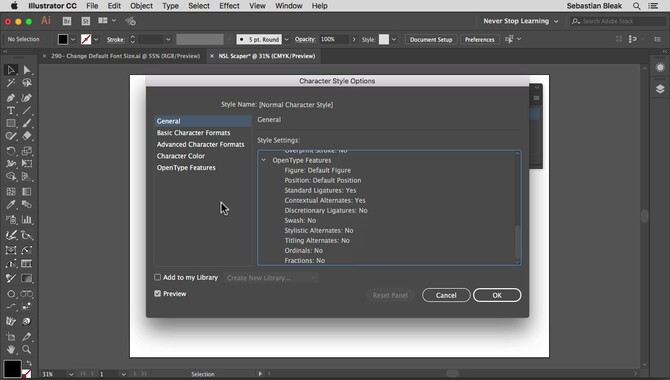
If you’re a graphic designer, chances are you’re familiar with Adobe Illustrator Font List. And if you’re familiar with Adobe Illustrator, then you know that one of its best features is the ability to work with fonts. After all, fonts are an important part of any design, and Adobe Illustrator offers various fonts.
But what if you’re new to Adobe Illustrator? Or maybe you’re just looking for a refresher on the different types of fonts available in the software. Either way, we’ve got you covered. Below is a comprehensive list of all the fonts available in Adobe Illustrator.
Sans Serif Fonts: As the name suggests, sans-serif fonts don’t have any extra embellishments. They’re typically simple and easy to read, making them a popular choice for things like body copy. Adobe Illustrator has several different sans-serif fonts, including Arial, Helvetica, and Verdana.
Serif Fonts: Serif fonts, on the other hand, do have those extra embellishments, or “serifs.” They’re often used for headlines or other short pieces of text because they’re easy to read in small sizes. Adobe Illustrator has several different serif fonts, including Times New Roman, Georgia, and Garam.
What Is The Name Of The Default Font In Adobe Illustrator?
There are a few things to consider when determining the name of the default font in Adobe Illustrator. The first is the version of Adobe Illustrator you are using. The second is whether you are working on a Mac or PC. And the third is the type of file you are working with.
If you use Adobe Illustrator CC (Creative Cloud), the default font is Myriad Pro. If you use an older Adobe Illustrator version, the default font is probably Arial.
If you are working on a Mac, the default font is probably Helvetica. If you are working on a PC, the default font is probably Times New Roman. The type of file you are working with can also affect the default font. For example, if you are working with a PDF file, the default font is Times New Roman.
Here is a real-life example: I am working on a design in Adobe Illustrator CC. I am using the default font, Myriad Pro. I am working on a Mac. I am working with a PDF file.
How Can You Change The Font In Adobe Illustrator?
You can change the Font in Adobe Illustrator in a few different ways. First, go to the Type menu and select Change Font. This will open up a dialog box where you can select the new Font that you want to use. Another way to change the Font is to select the text with the Selection tool and choose the new Font from the Character panel. You can also change the font size, tracking, and leading from the Character panel.
If you want to change the text to all caps or small caps, you can also do that from the Character panel. And finally, if you want to change the text to a different color, you can do that from the Color panel. So those are a few different ways to change the Font in Adobe Illustrator. Give them a try and see which one works best for you.
- Click on the Add Fonts button.
- A window will open. Select the folder that contains the font file.
- The Font will now be available in the Typedrop-down menu.
This process can be used to add any font file to Adobe Illustrator, whether it is a TrueType (.ttf), OpenType (.otf), or PostScript (.ps) file.
What Are Some Of The Best Fonts To Use In Adobe Illustrator?
There are a few things to consider when choosing fonts for Adobe Illustrator. First, you must decide what message you want to communicate with your design. Are you going for a playful look or something more serious? Once you’ve decided on the tone of your design, you can start narrowing down your font choices.
Some of the best fonts to use in Adobe Illustrator are sans-serif fonts like Arial or Helvetica. These fonts are clean and simple, which makes them easy to read. If you want to add a bit of personality to your design, try using a script font like Lobster or Pacifico. Just remember to keep the rest of your design simple so that your Font can shine.
Here’s an example of a design that uses a sans-serif font:
And here’s an example of a design that uses a script font:
As you can see, the Font you choose can make a difference in the overall look of your design. So take some time to experiment with different fonts until you find the perfect one for your project. Hopefully, you are clear on the Adobe Illustrator font list. If you still have any questions, feel free to comment below.